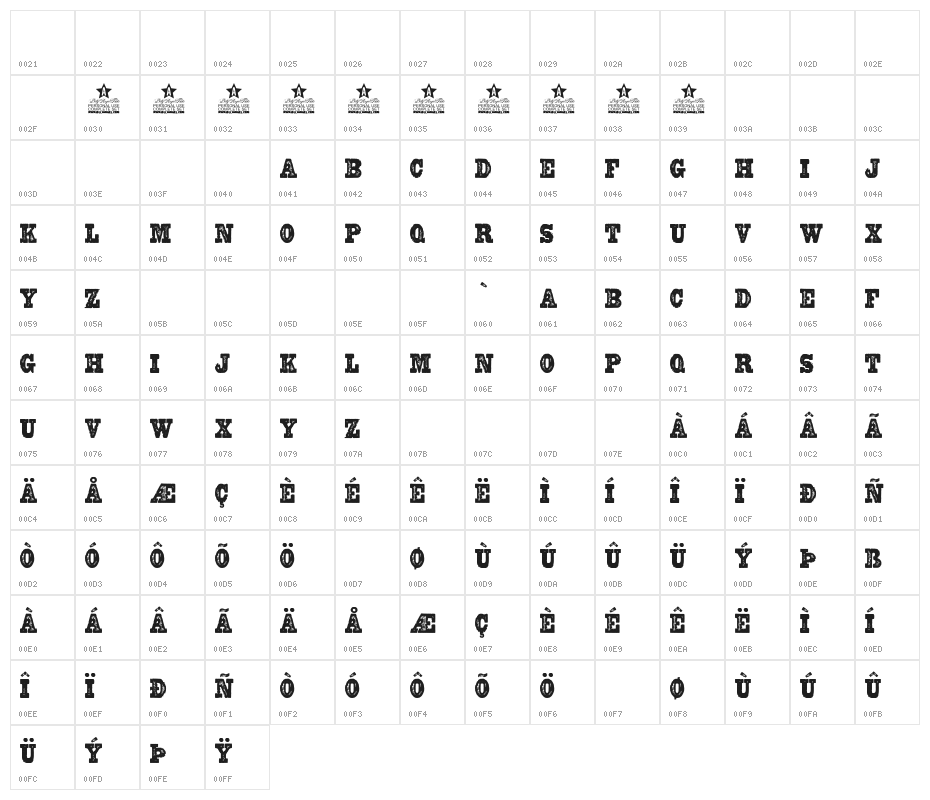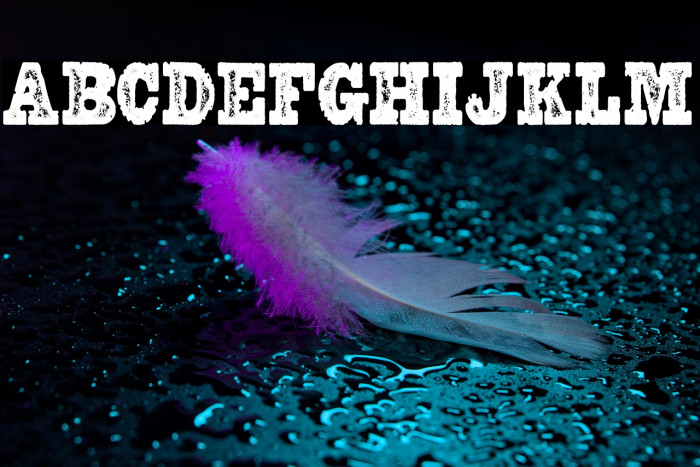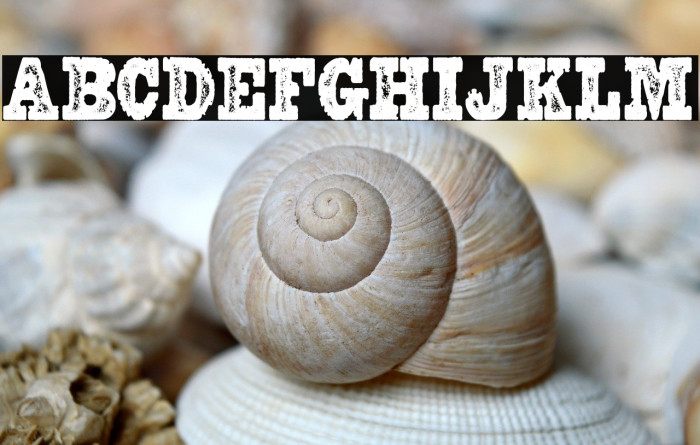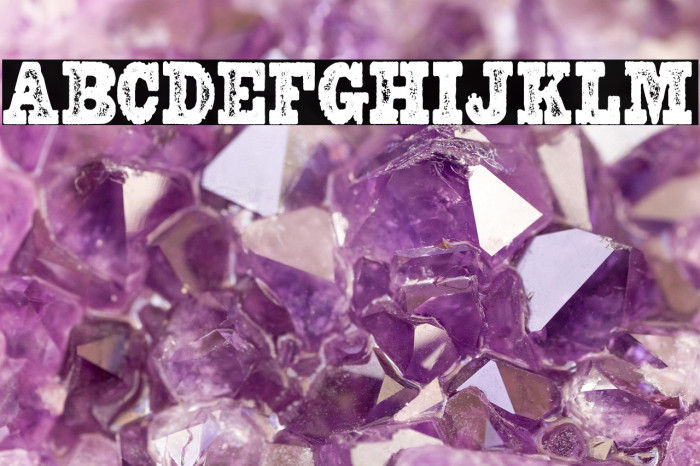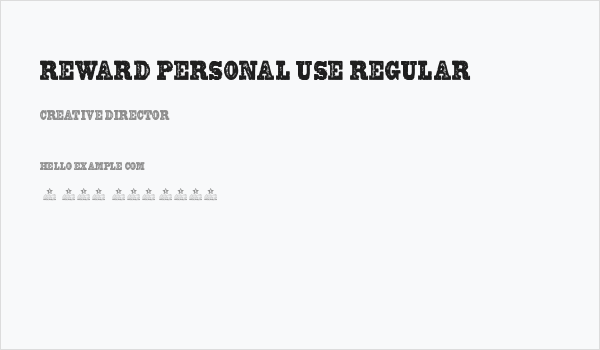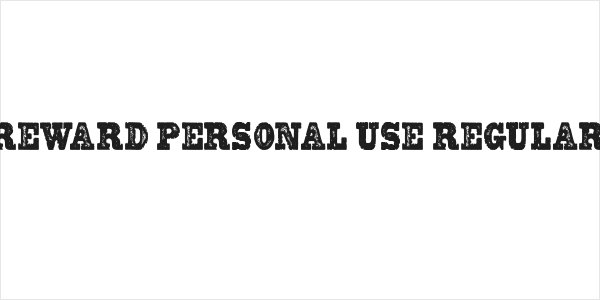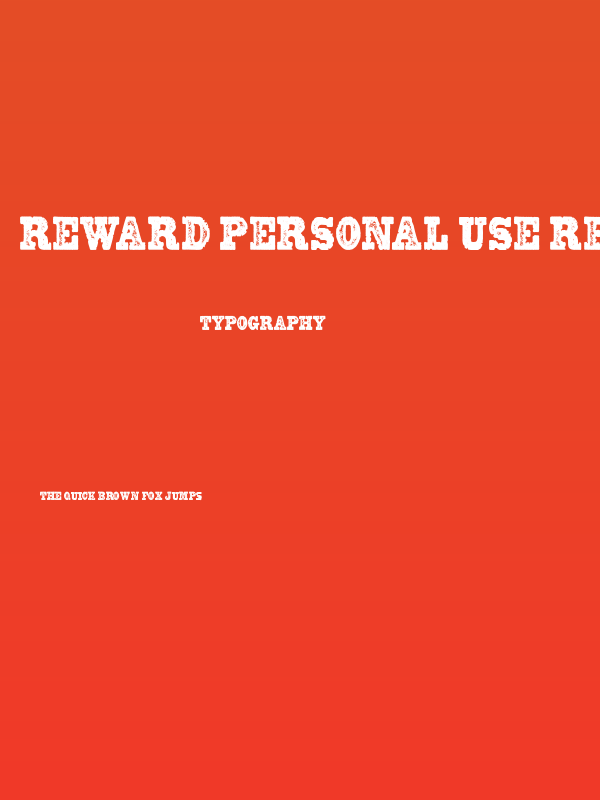
REWARD PERSONAL USE Regular Font
REWARD PERSONAL USE Regular Description
This font features a bold, distressed style with a vintage aesthetic. Each character is heavily textured, giving it a rugged and worn appearance reminiscent of old western posters or vintage signage. The uppercase letters are robust and impactful, making them ideal for creating attention-grabbing headlines or titles. The font's unique texture adds depth and character, making it stand out in any design project. Its boldness and distinctive style make it suitable for projects that require a strong visual presence.